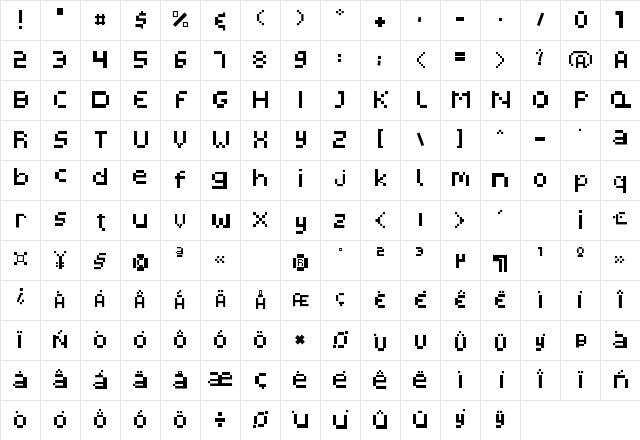
Pixelated Display Regular Free Font
Pixelated Display Regular
Foundry: Jetsmax Studio
Designer: Khairil Anwar
Design Context for Pixelated Display
Pixelated Display is rooted in pixel-grid construction, making it a natural fit for game UI, retro computing aesthetics, and digital nostalgia projects.
Pro Tip: Use Pixelated Display at sizes that align with its pixel grid for the sharpest rendering - scaling to non-integer multiples can introduce unwanted blur.